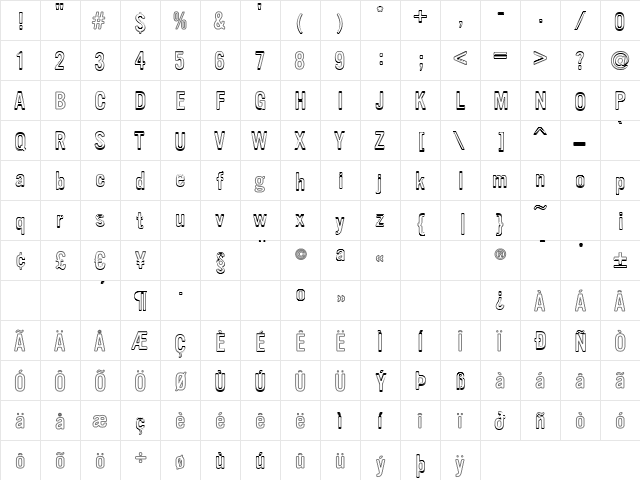
VinylDouble Outline Regular
Design Context for VinylDouble Outline Typeface
VinylDouble Outline is built around its visual character rather than neutral utility — its distinctive forms are designed to make an impression at display sizes.
Font Pairing: Pair with a clean neutral sans-serif for body copy to let VinylDouble Outline's character lead without overwhelming the composition.
Pro Tip: Treat VinylDouble Outline as the centrepiece of your typographic hierarchy. One strong heading set in a decorative face can carry an entire layout.